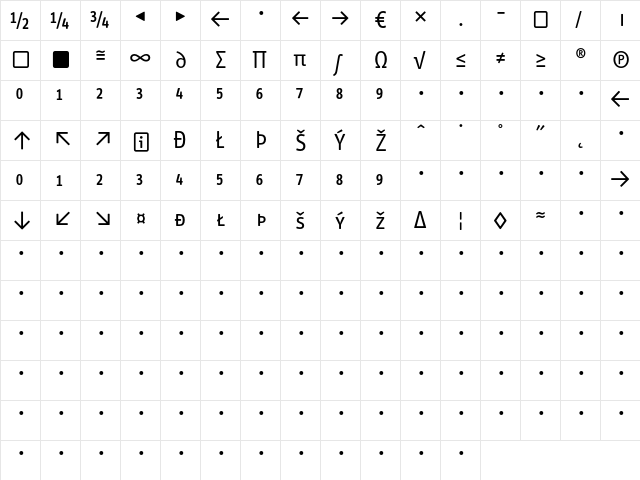
InfoTextRegular CapsExp
Design Context for InfoTextRegular Typeface
InfoTextRegular offers clean, dependable letterforms without strong stylistic allegiance, making it a practical choice for designers who need flexibility.